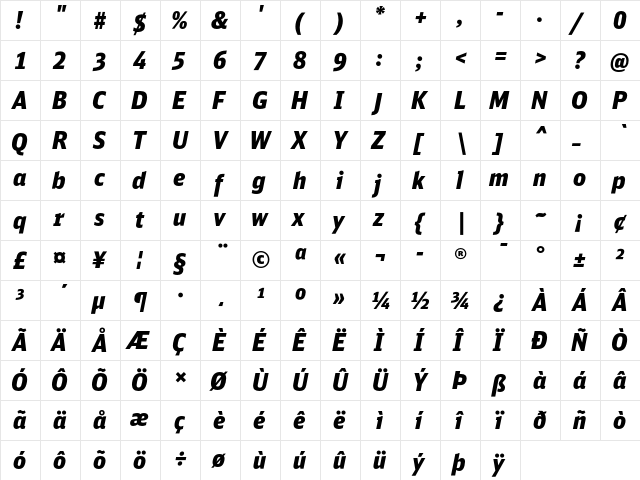
DB Sans Cond Black Italic Font Preview
Design Context for DB Sans Cond Typeface
DB Sans Cond takes a measured approach to typography — its balanced proportions and neutral character make it a reliable workhorse for both digital and print work. The dynamic lean of this cut emphasises speed and emphasis in any layout. The condensed width makes it efficient for tight spaces without sacrificing legibility.
Pro Tip: Use DB Sans Cond for emphasis, pull quotes, and subheadings where its slanted energy can add rhythm to the layout.